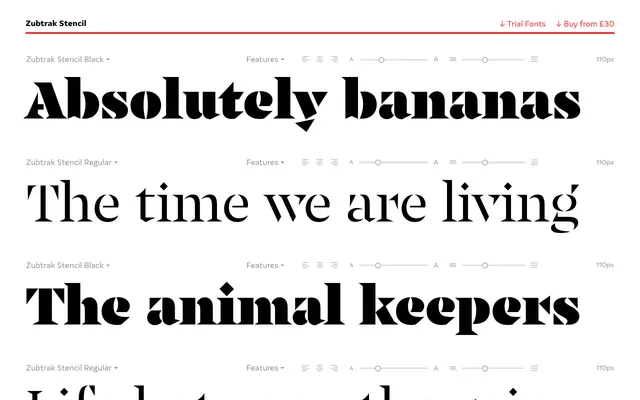
Zubtrak Stencil
Typeland · Vaibhav Singh · 2020
A sharp stencil serif in two weights by Vaibhav Singh, built for display use with a variable axis and a dry, angular character.
Released in October 2020, Zubtrak Stencil pairs a serif structure with hard stencil interruptions to produce a typeface suited to posters, editorial headlines and any context that wants a no-nonsense edge. It ships in Regular and Black, both with variable axes, and covers standard Latin in OTF, TTF, WOFF and WOFF2 formats. The foundry's own copy takes a pointed tone against type marketing clichés, which suits a face that is itself fairly blunt in its design language.
Classified as a sharp stencil serif by the foundry; the stencil cuts interrupt otherwise serif letterforms, placing it firmly in the display stencil tradition with a serif skeleton.